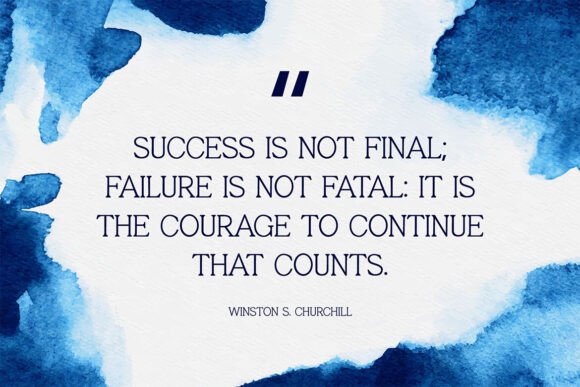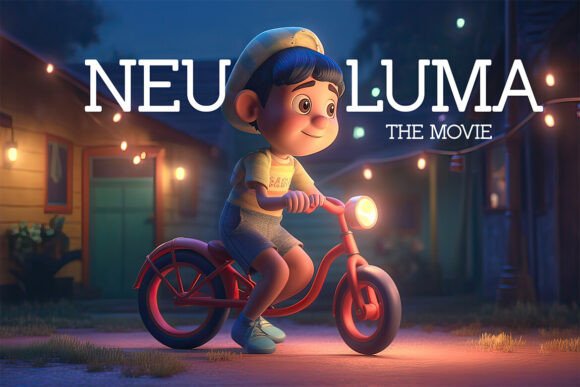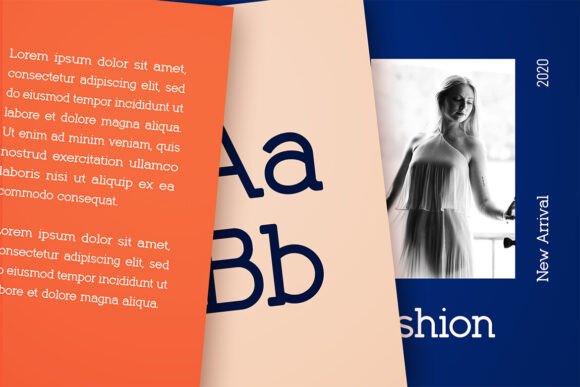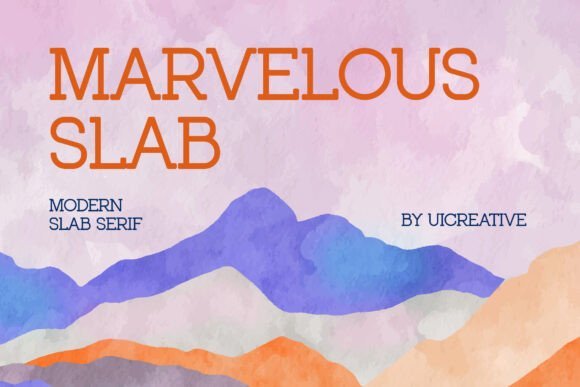
Introduction to Marvelous Slab Font
Marvelous Slab Modern Slab Serif Font.
The modern display font feels beautiful classy, elegant, and stylish This font is ideally suited for a wide variety of projects, such as signature, stationery, logo, wedding, typography quotes, magazine or book covers, website headers, branding, and more.
Key Features of Marvelous Slab Font
Why Choose Marvelous Slab Font?
Marvelous Slab Font offers exceptional quality and versatility, making it a valuable addition to your design toolkit. Whether you’re creating for personal projects or commercial use, Marvelous Slab Font delivers professional results.